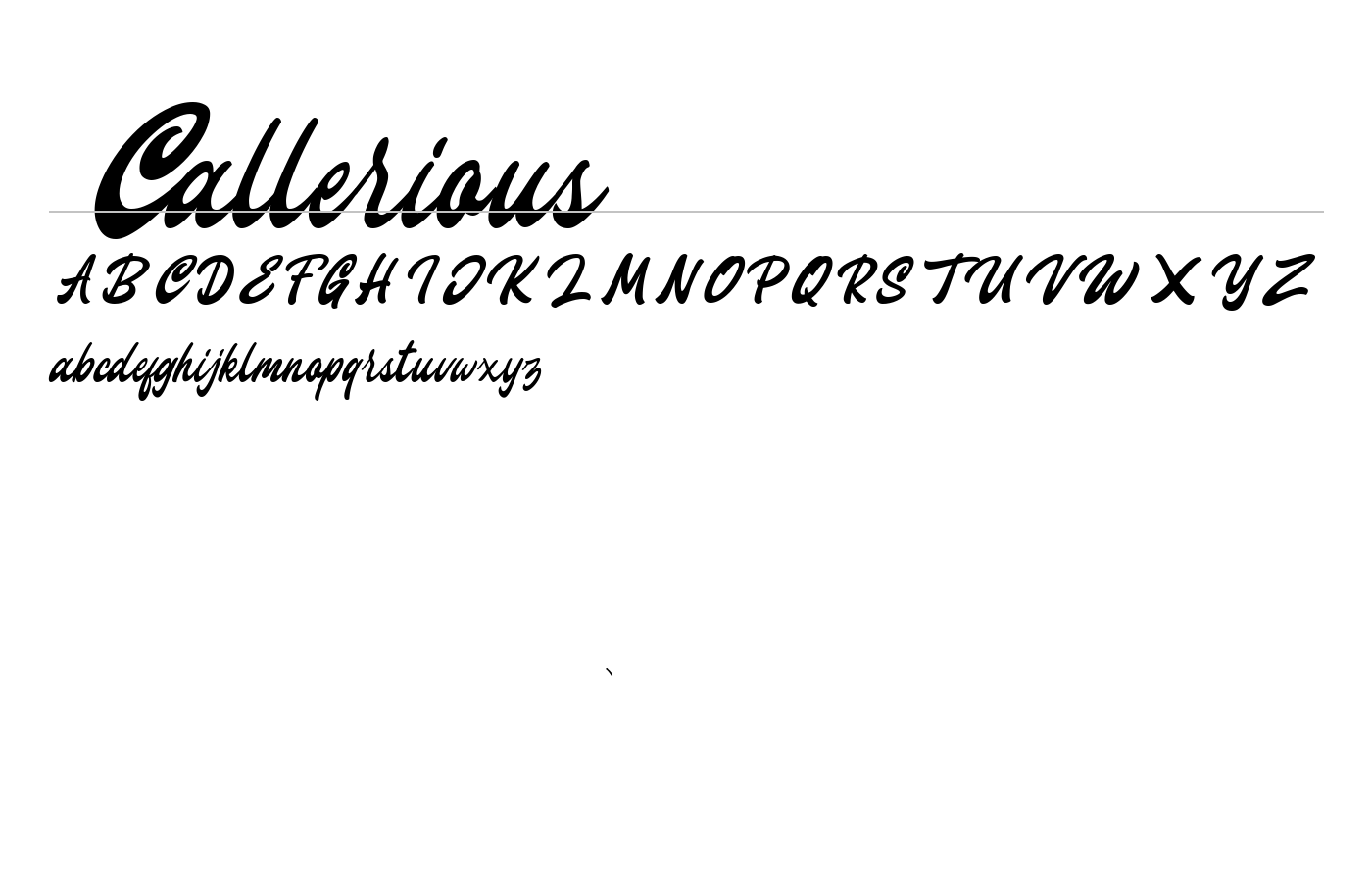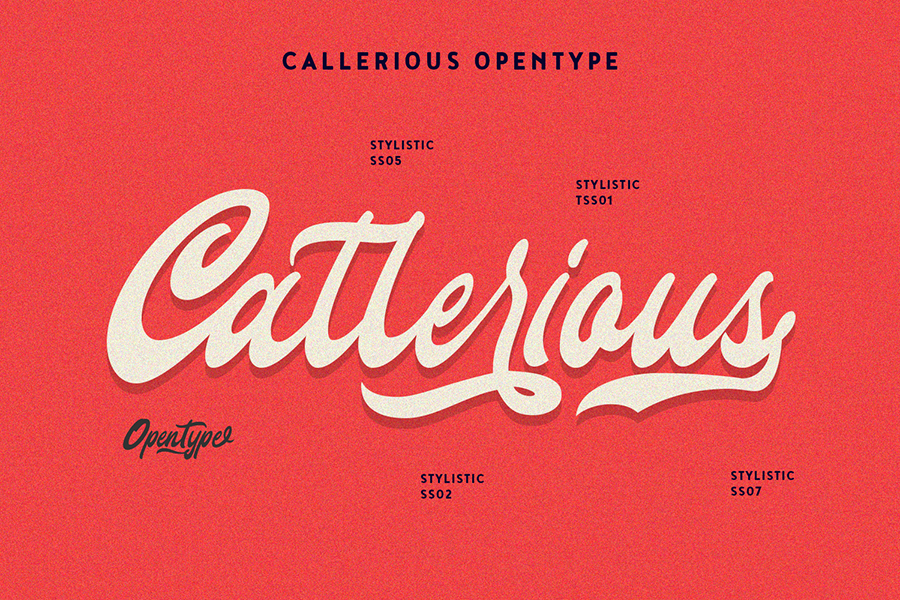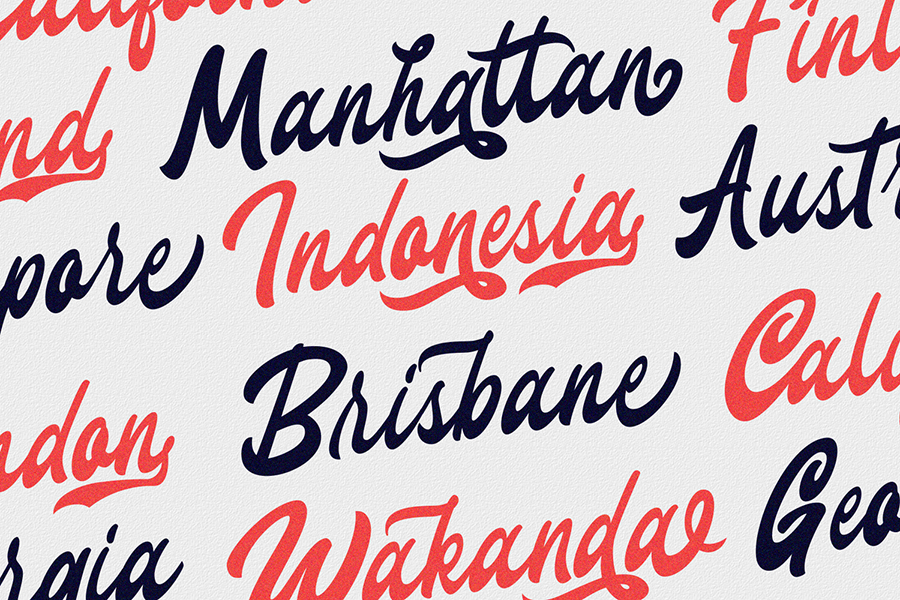
Callerious Handlettering Script is a lively and elegant script font with a handwritten, calligraphic style that features smooth, flowing strokes and moderate contrast. Its characters are slightly italicized with a natural flair, offering both uppercase and lowercase letters that maintain readability while conveying a personal, artistic touch. This font is perfect for creative branding, invitations, and headlines where a stylish, approachable, and refined look is desired.
Callerious Handlettering Script
About Callerious Handlettering Script
| Font family | Callerious Handlettering Script |
| Designer | Moovied Co. |